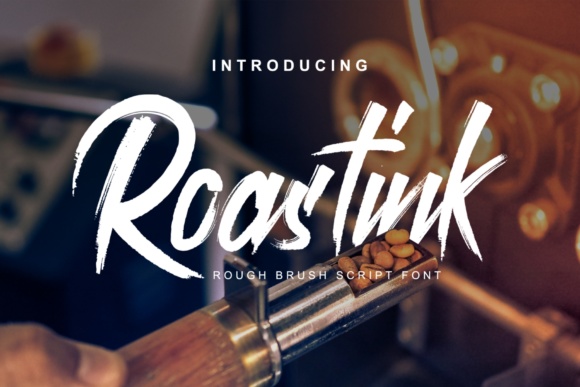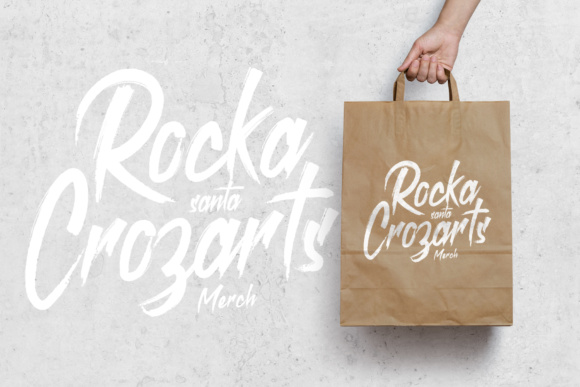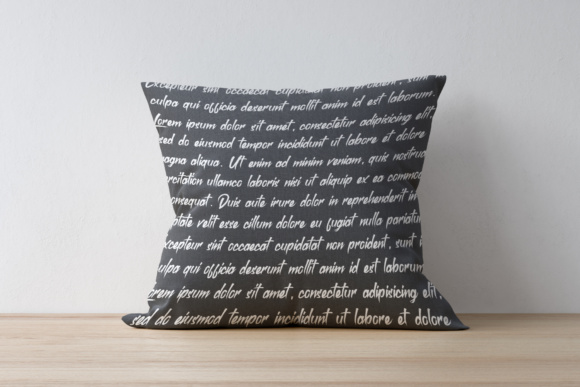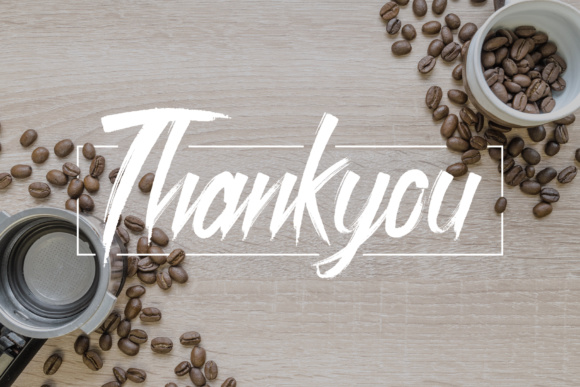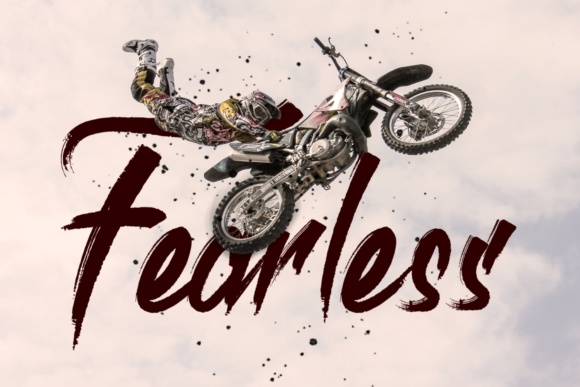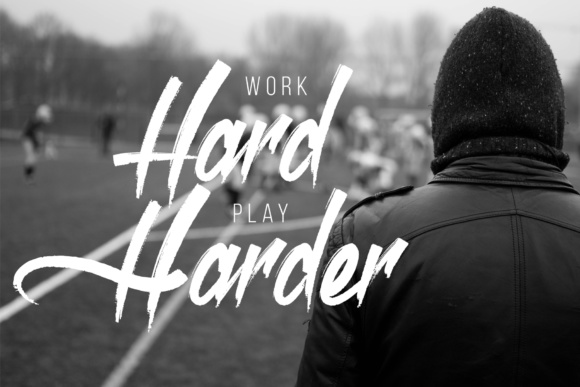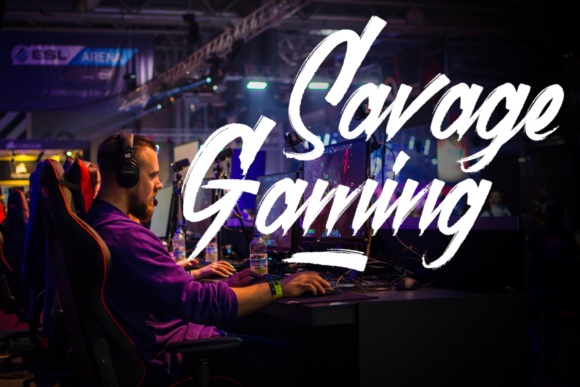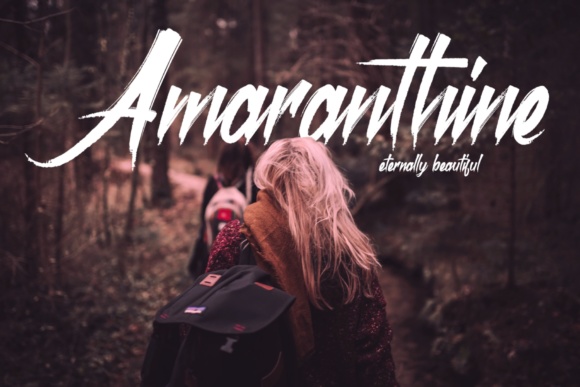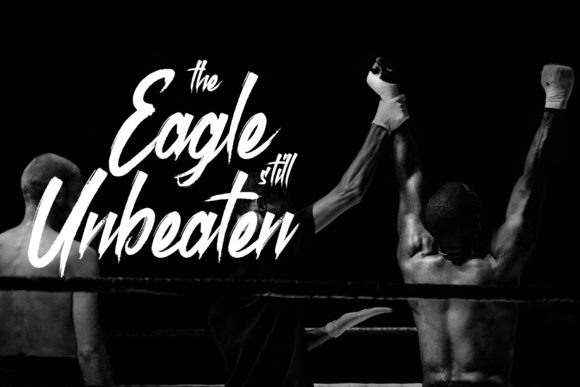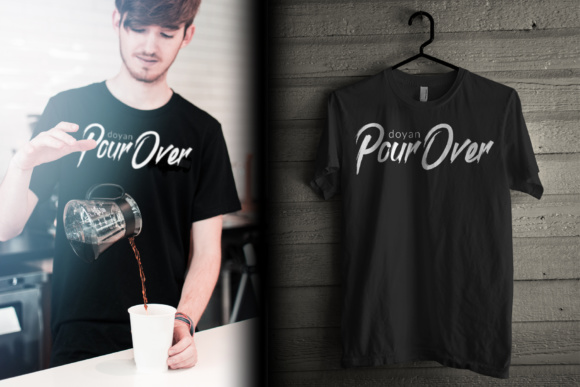
Roastink Script Font
About Roastink Script Font
The Roastink is a sharp and elegant script font. It has a good readability and will add a striking look to your designs!